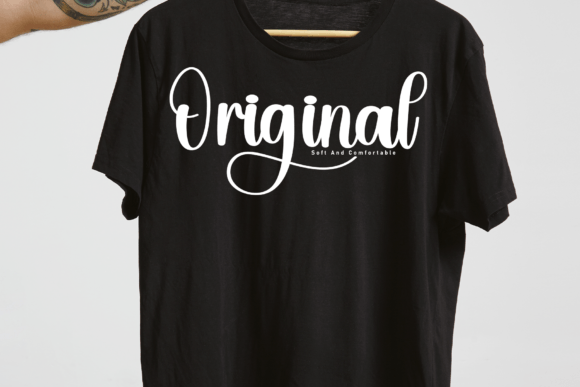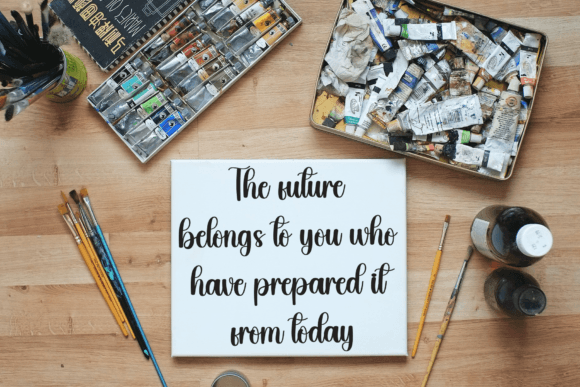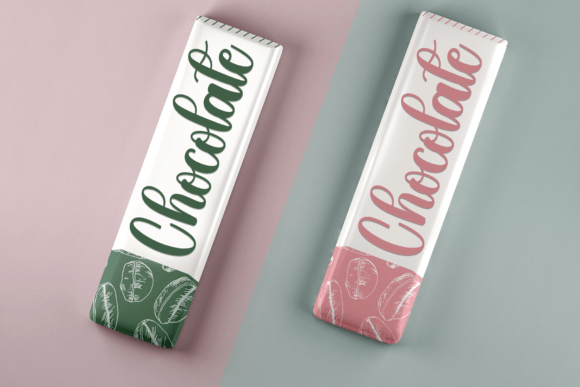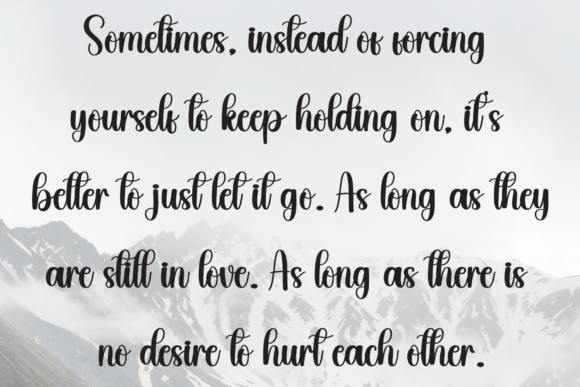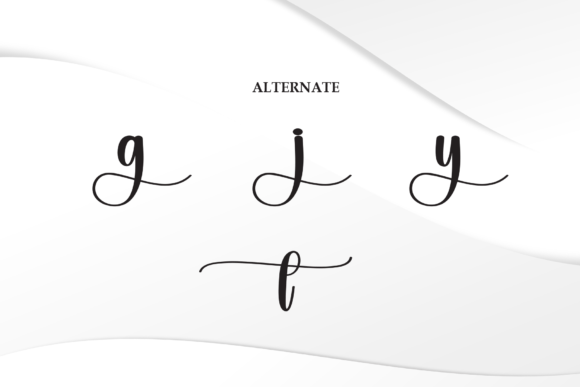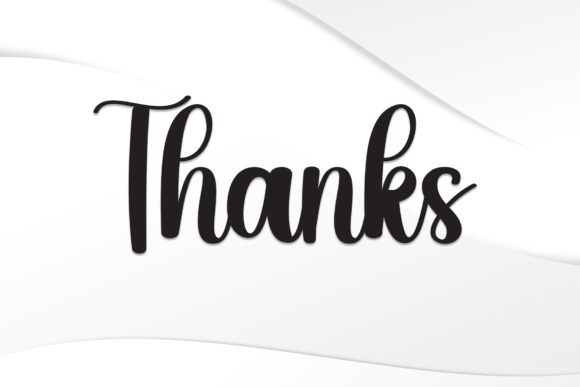
The Warmth of Drayton Font: A Designer’s New Best Friend
I still remember the project like it was yesterday. I was working on a custom wedding invitation for a lovely couple, and I was determined to get the design just right. But as I scrolled through my font library, I couldn’t shake the feeling that something was missing. That’s when I stumbled upon Drayton Font, and it was love at first sight! 💕
Drayton is a sweet and friendly handwritten font that exudes warmth and approachability. Its gentle curves and soft lines create a welcoming tone, making it perfect for heartfelt messages, invitations, and personal touches. In this article, I’ll share my experience with Drayton, its features, and how to make the most of it in your designs.
An Honest Review of Drayton Font
What I Love About Drayton ✨
- ✅ The warm and inviting tone it brings to any design
- ✅ The perfect blend of elegance and playfulness
- ✅ Easy to read, even in smaller sizes
- ✅ Highly versatile, suitable for various design projects
- ⚠️ Limited availability of stylistic alternates (but still offers a range of OpenType features)
- ⚠️ May not be the best choice for very formal or corporate designs
The Story Behind Drayton Font
Drayton font was designed with the intention of creating a warm and inviting typeface that would bring a personal touch to any design. Inspired by traditional handwritten fonts, Drayton’s creator aimed to craft a font that would feel both elegant and approachable.
Q: What type of projects is Drayton font best suited for?
A: Drayton font is perfect for projects that require a warm and inviting tone, such as invitations, personal letters, and creative designs.
Q: Is Drayton font available in different weights or styles?
A: Currently, Drayton font is available in a single weight. However, its versatility and range of OpenType features make it suitable for various design applications.